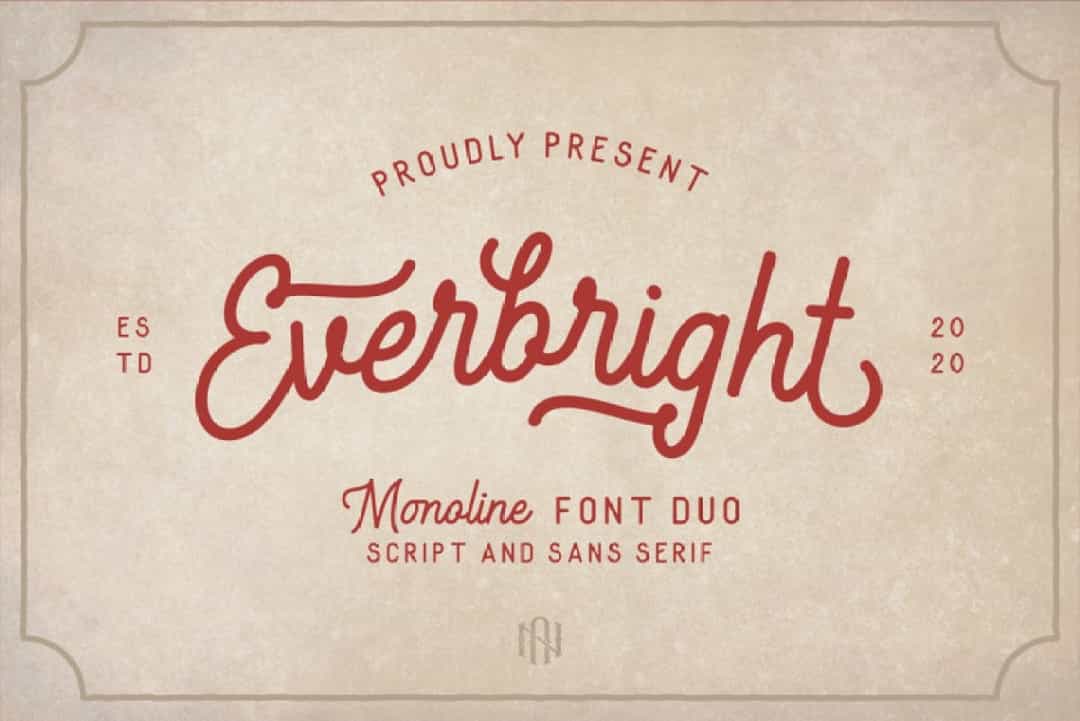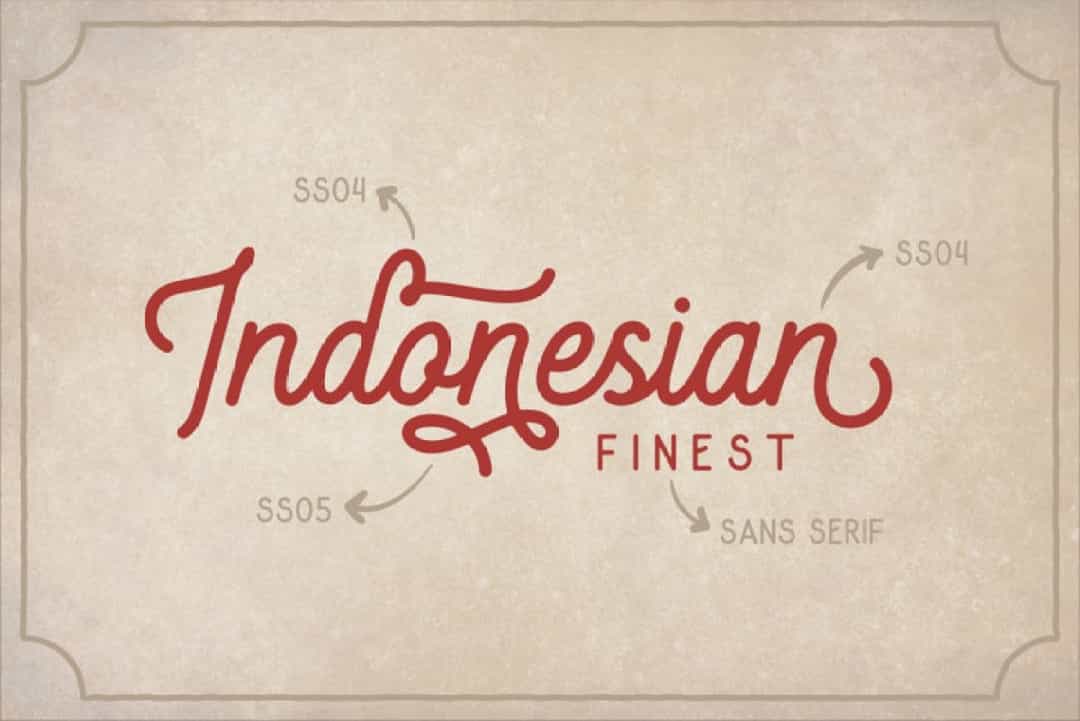
Everbright Font Duo is a modern, balanced single-line font and sans serif that creates a distinct look in projects such as logo design, branding, product development, wedding invitations books posters as well as social media marketing campaigns and others.